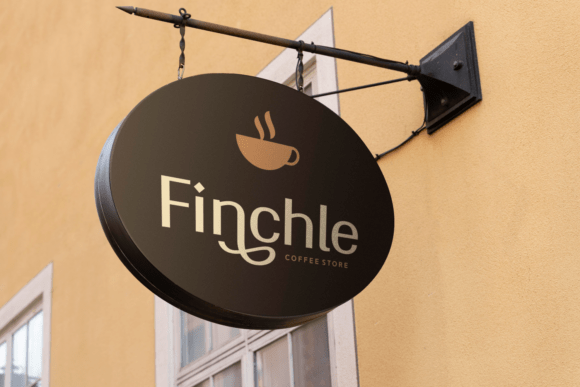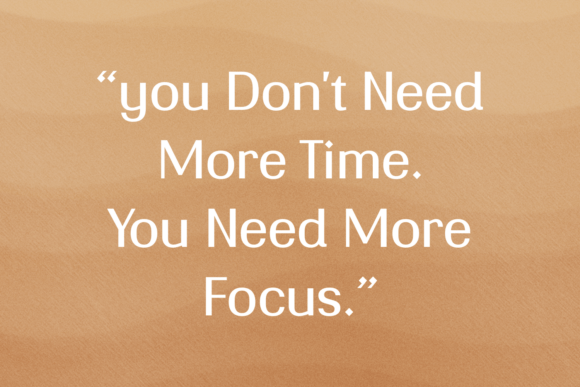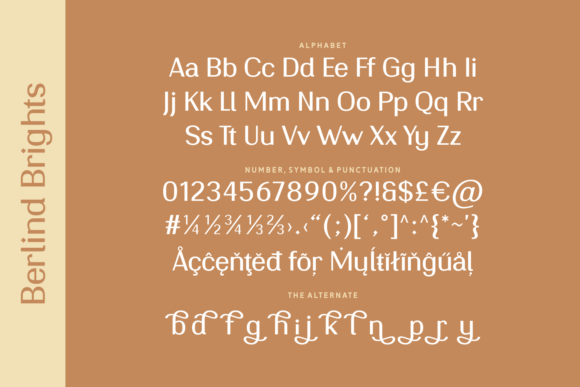
The Perfect Blend of Style and Substance: Berlind Brights Font
Have you ever found yourself stuck in front of a blank page, struggling to find the perfect font to bring your creative vision to life? We’ve all been there. But what if you could unlock a font that effortlessly combines clean minimalism with elegant flourishes, making your designs truly shine?
Enter the Berlind Brights Font, a modern and stylish sans serif font that’s perfect for branding, logos, magazines, social media, and wedding invitations. With its sleek lines and subtle decorative touches, this font offers a refined personality that’s sure to impress. As a designer, you’ll appreciate the versatility and chic charm of Berlind Brights Font, which strikes a beautiful balance between contemporary clarity and artistic flair.
Whether you’re a seasoned pro or just starting out, the Berlind Brights Font is a valuable addition to any designer’s toolkit. Its unique blend of style and substance makes it an ideal choice for a wide range of projects, from bold logos to elegant wedding invitations.
Berlind Brights Font Key Features
- Font Type: Display Font, suitable for headings and titles.
- Character Set: Includes a wide range of characters, including Latin, Cyrillic, and Greek alphabets, making it a versatile font for various languages.
- Unique Characteristics: Features a unique blend of geometric and organic shapes, creating a distinctive and eye-catching visual style.
Designer Review: Berlind Brights Font
Overall, I’d say Berlind Brights Font is a solid choice for designers looking for a playful, whimsical font. Here are some things that work well:
- ✨ Unique letterforms: Each letter has a distinct personality, making it easy to add visual interest to your designs.
- ✨ Friendly feel: Berlind Brights Font is approachable and inviting, perfect for branding and marketing materials.
- ✨ Good for body text: Despite its playful nature, the font is legible and works well for longer blocks of text.
- ⚠️ Limited scalability: While the font looks great at medium sizes, it can become pixelated and distorted at larger sizes.
- ⚠️ Not ideal for formal documents: Berlind Brights Font is a bit too playful for formal or professional documents.
- ⚠️ Limited language support: The font may not support all languages, so be sure to check before using it for international projects.
Overall, I think Berlind Brights Font is a great choice for designers who want to add a touch of whimsy to their projects. Just be aware of its limitations and use it accordingly.
Tips for Getting the Most Out of Berlind Brights
To get the most out of the Berlind Brights font, use it for headings and titles to add a touch of elegance and sophistication. You can also pair it with other fonts to create a unique and visually appealing design.
The Berlind Brights font is ideal for designing wedding invitations, event materials, and other formal documents. It’s also a great choice for creating eye-catching headlines and titles for marketing materials and websites.